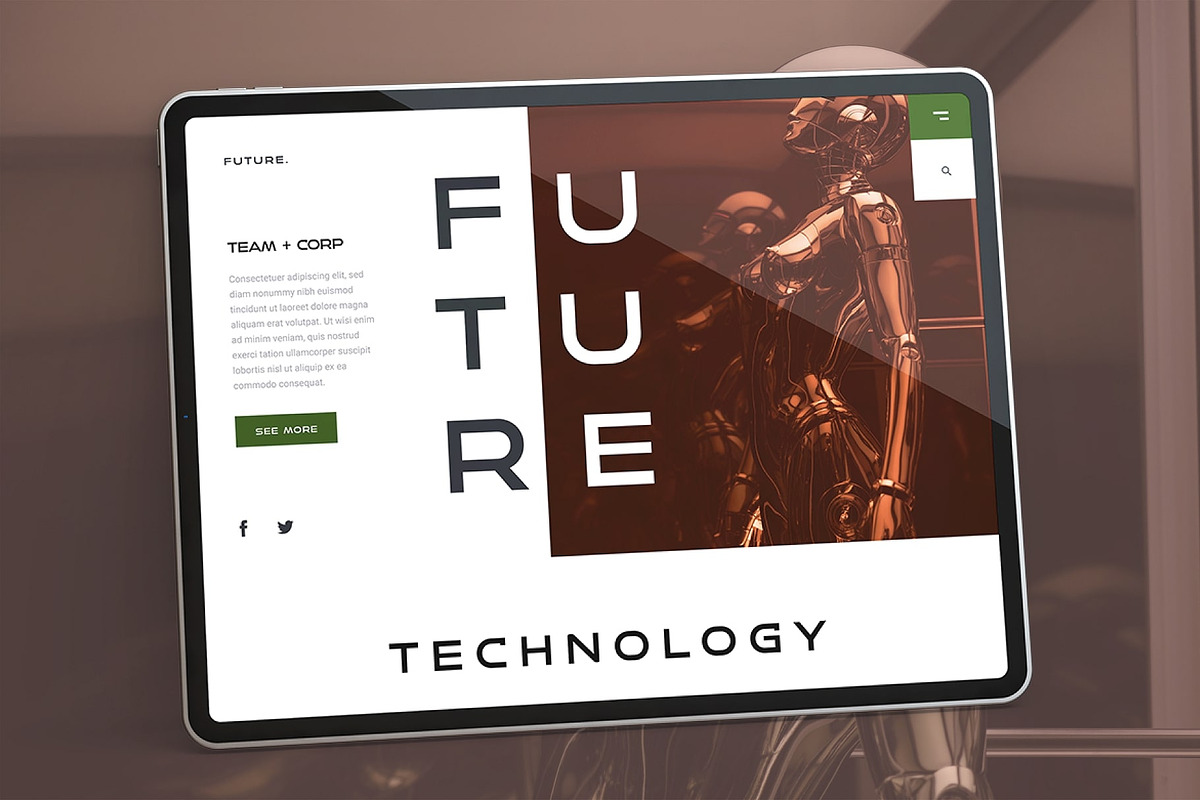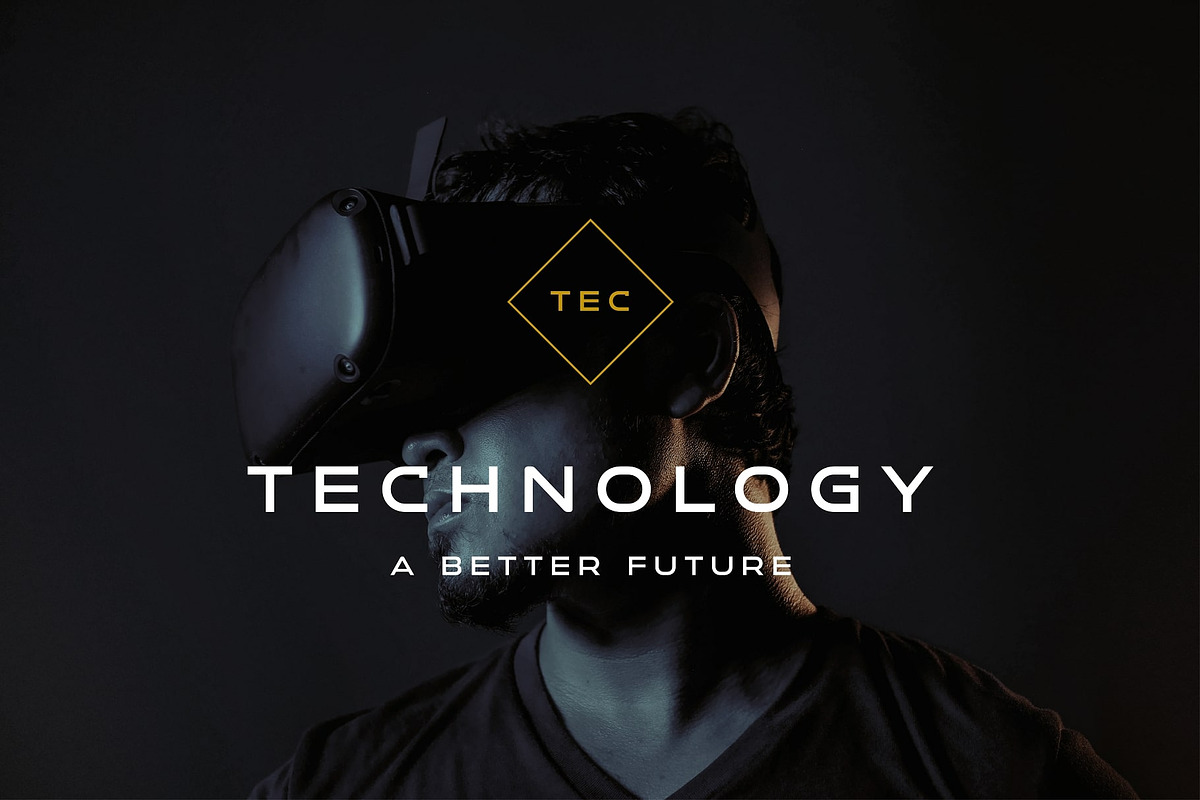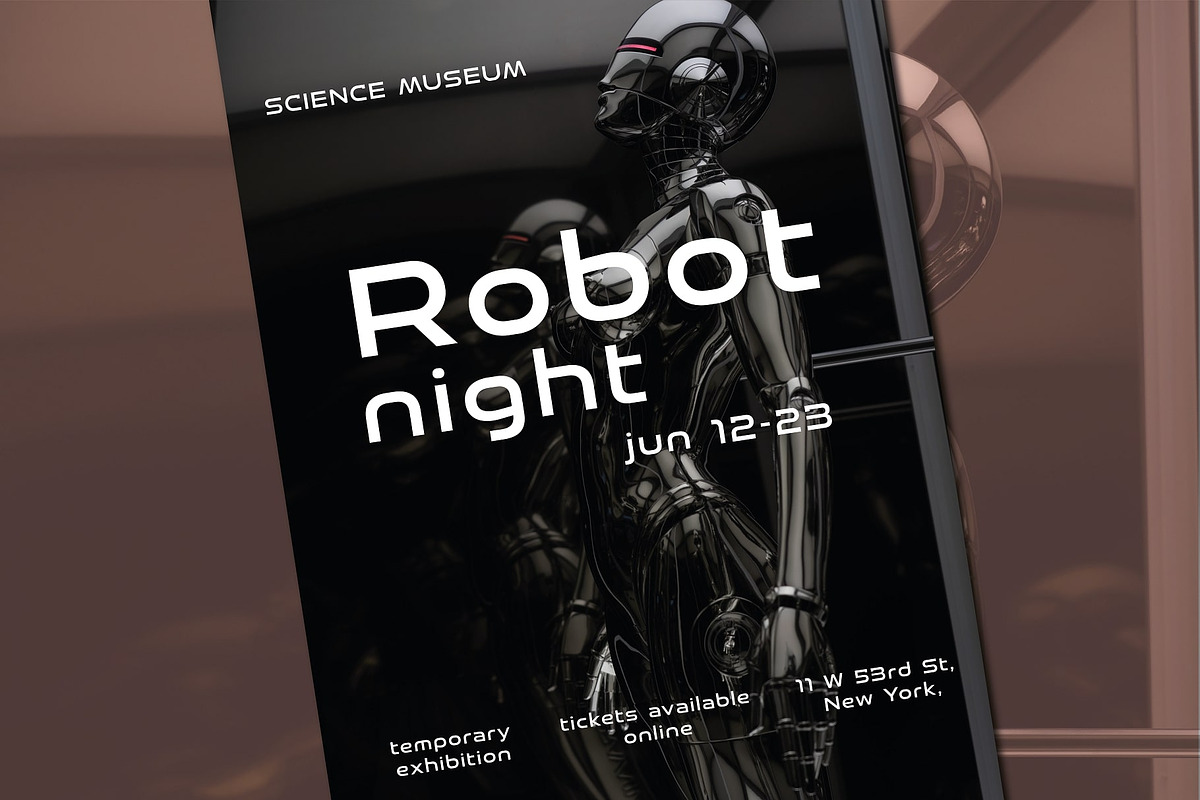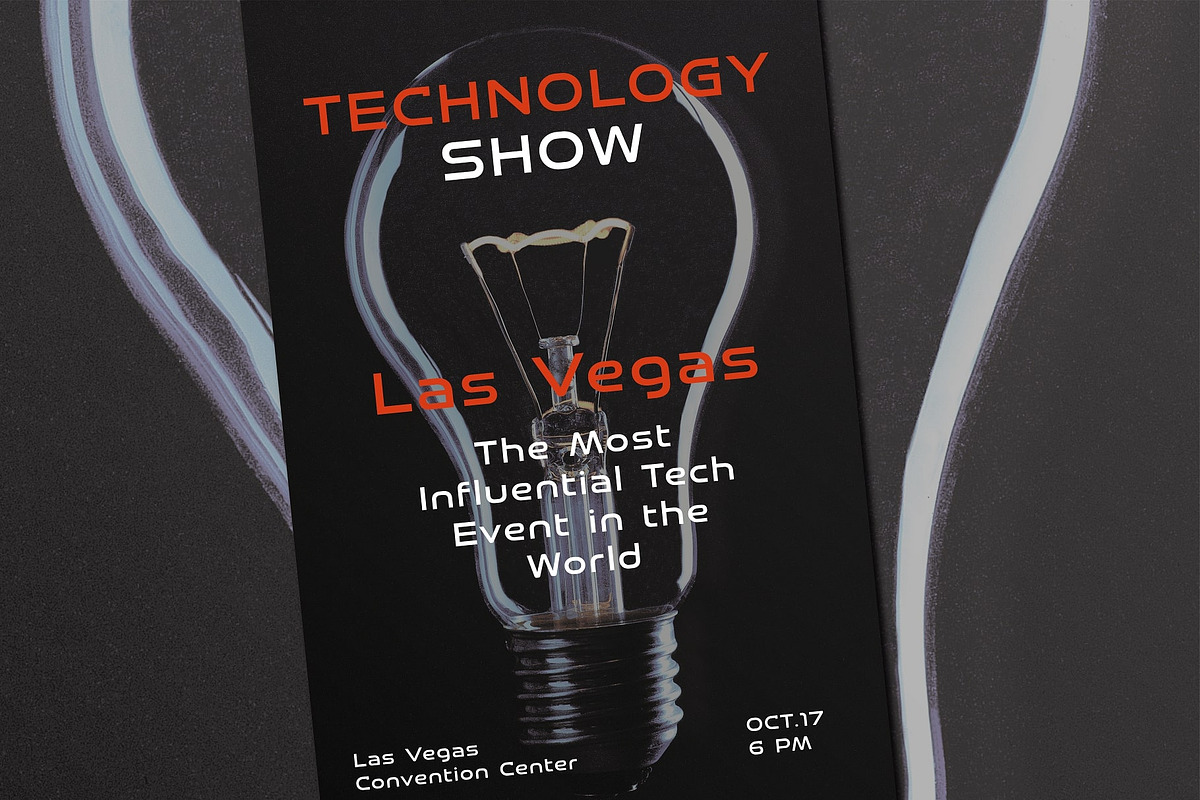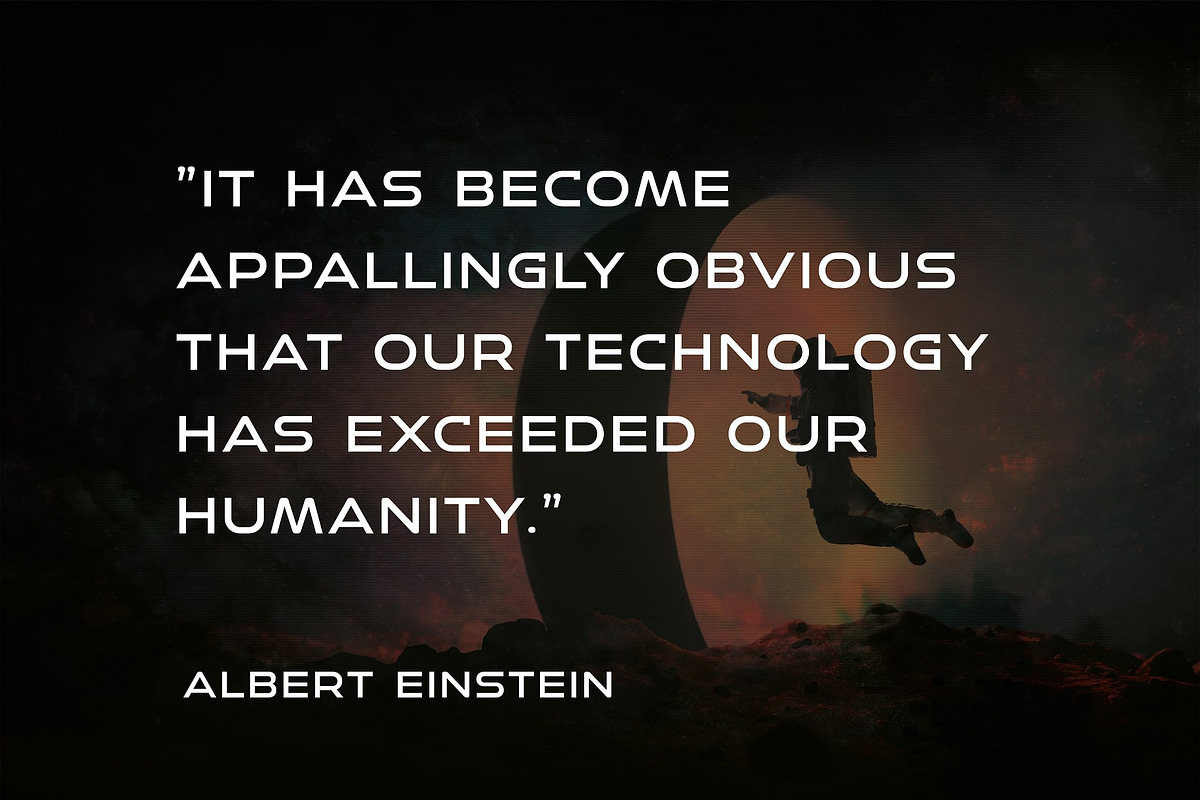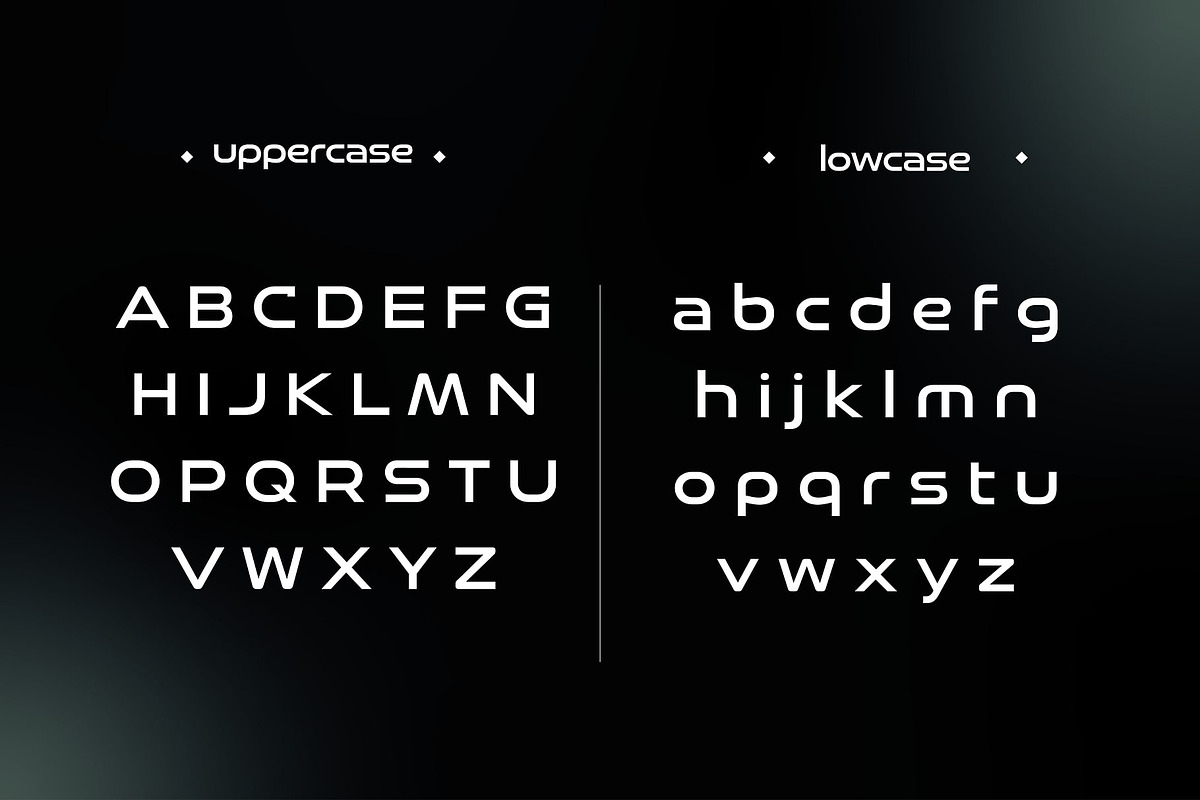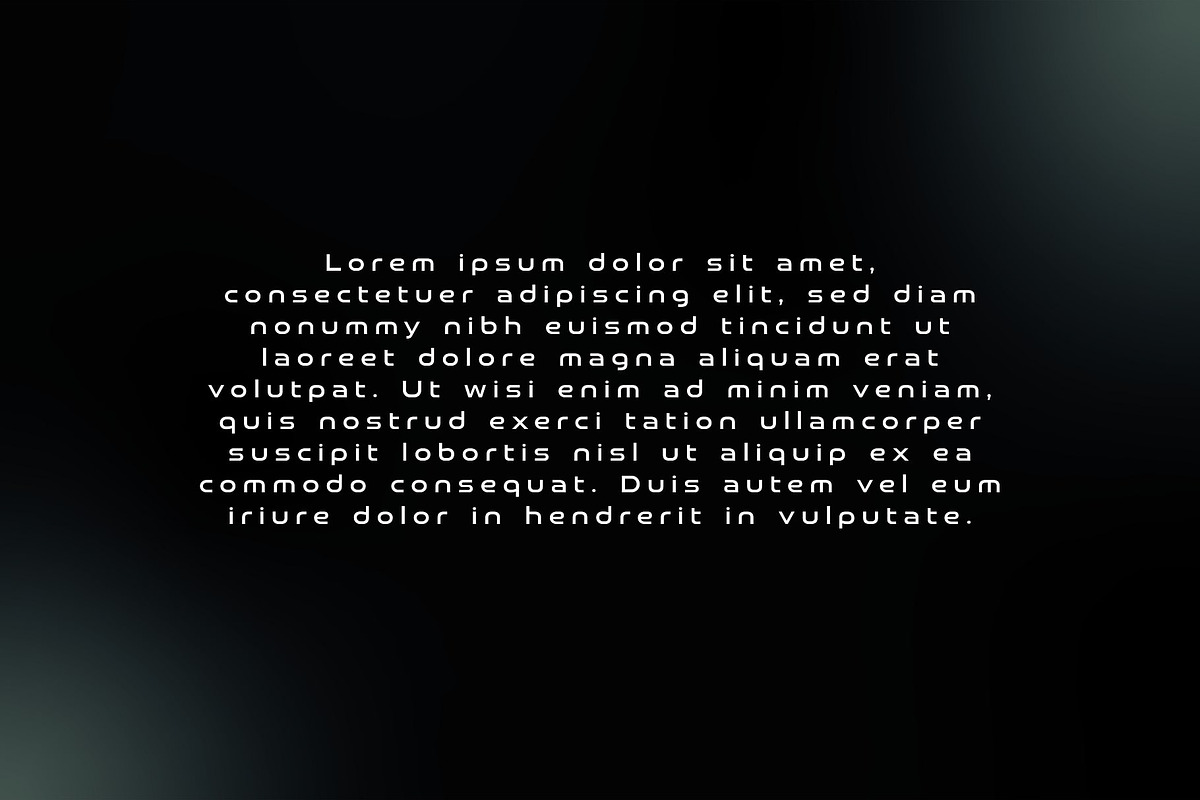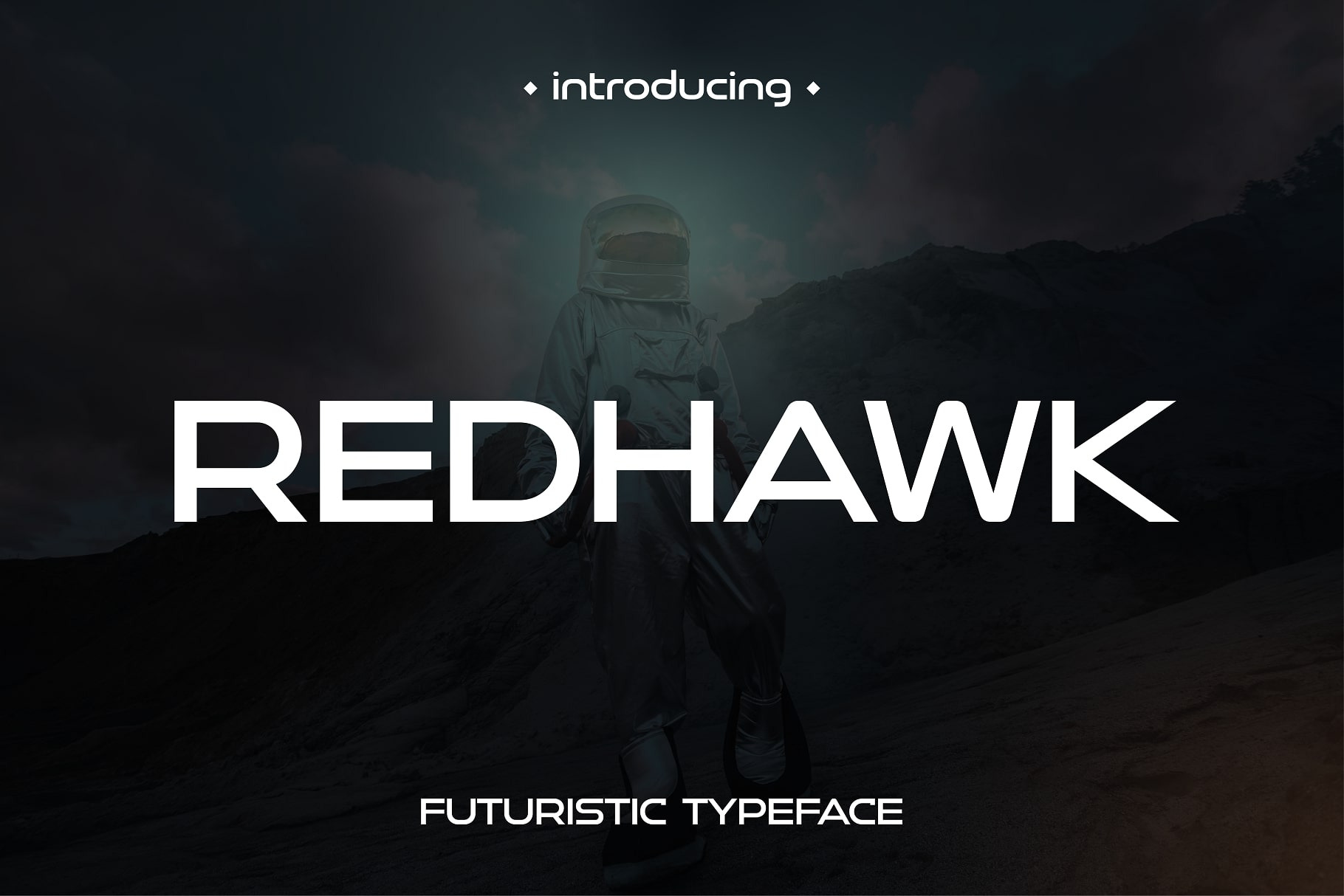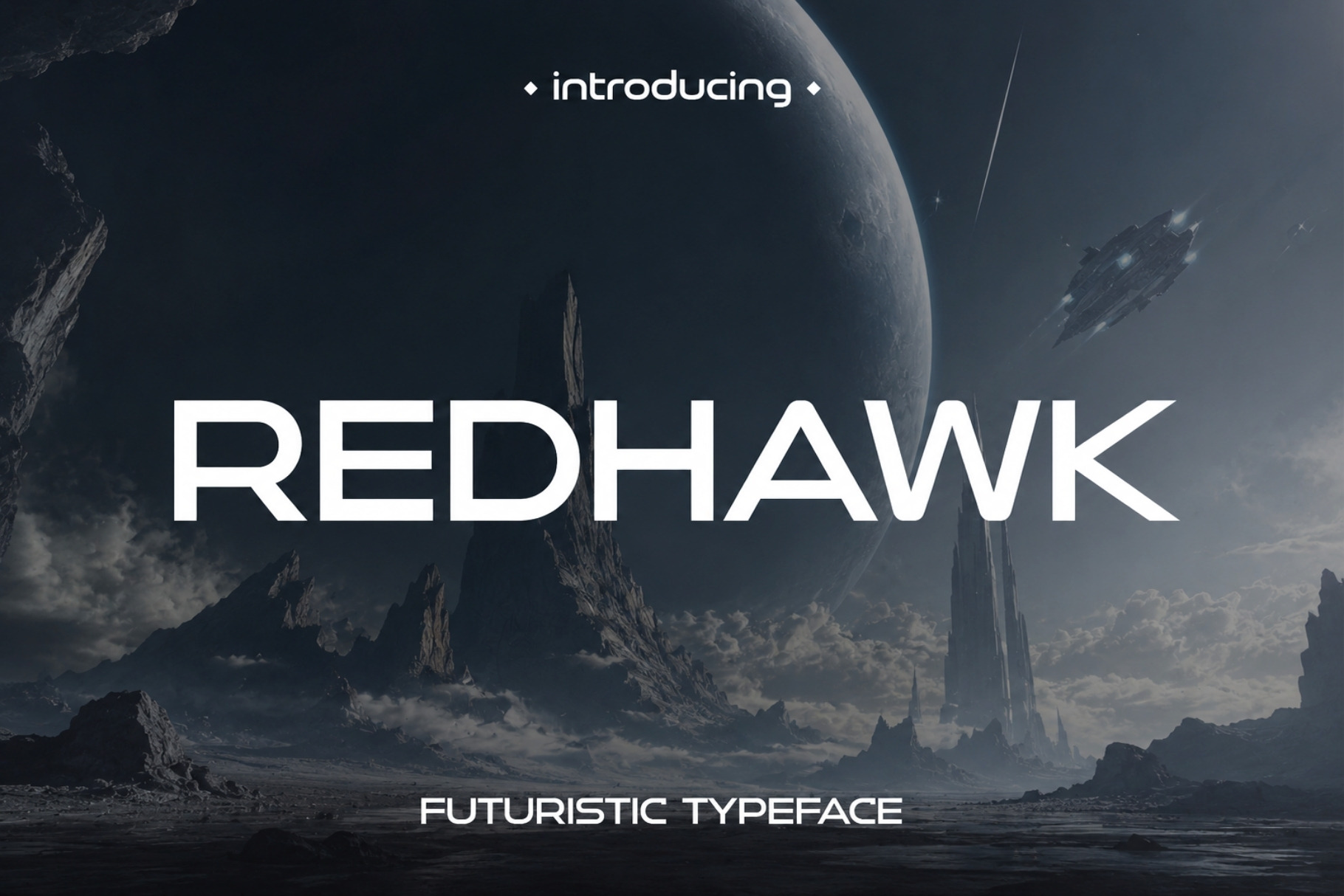
Redhawk - Futurist Typeface
Redhawk is a sleek futuristic typeface perfect for science fiction or technology projects. This font is legible and versatile. Thanks to it's minimalist style and unique letterforms, it's a perfect choice for labels, posters, branding, movies, magazines, packaging, books, video games, and much more.